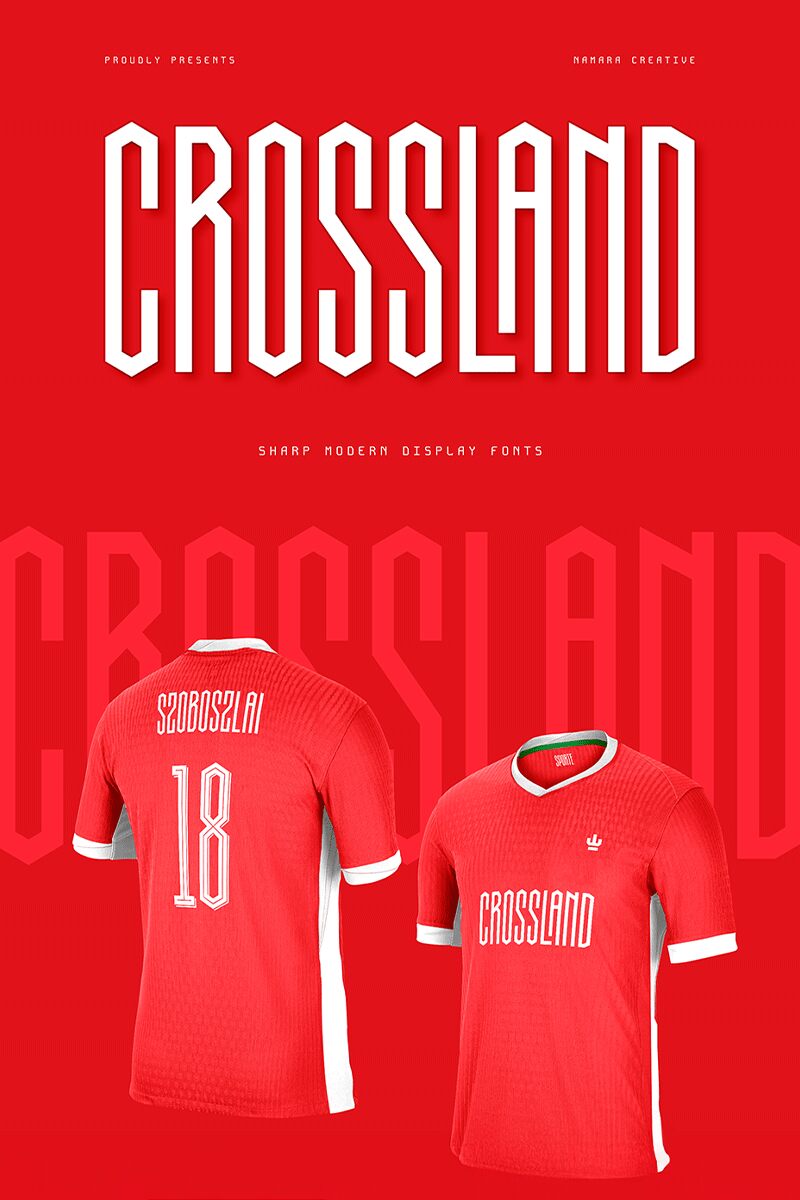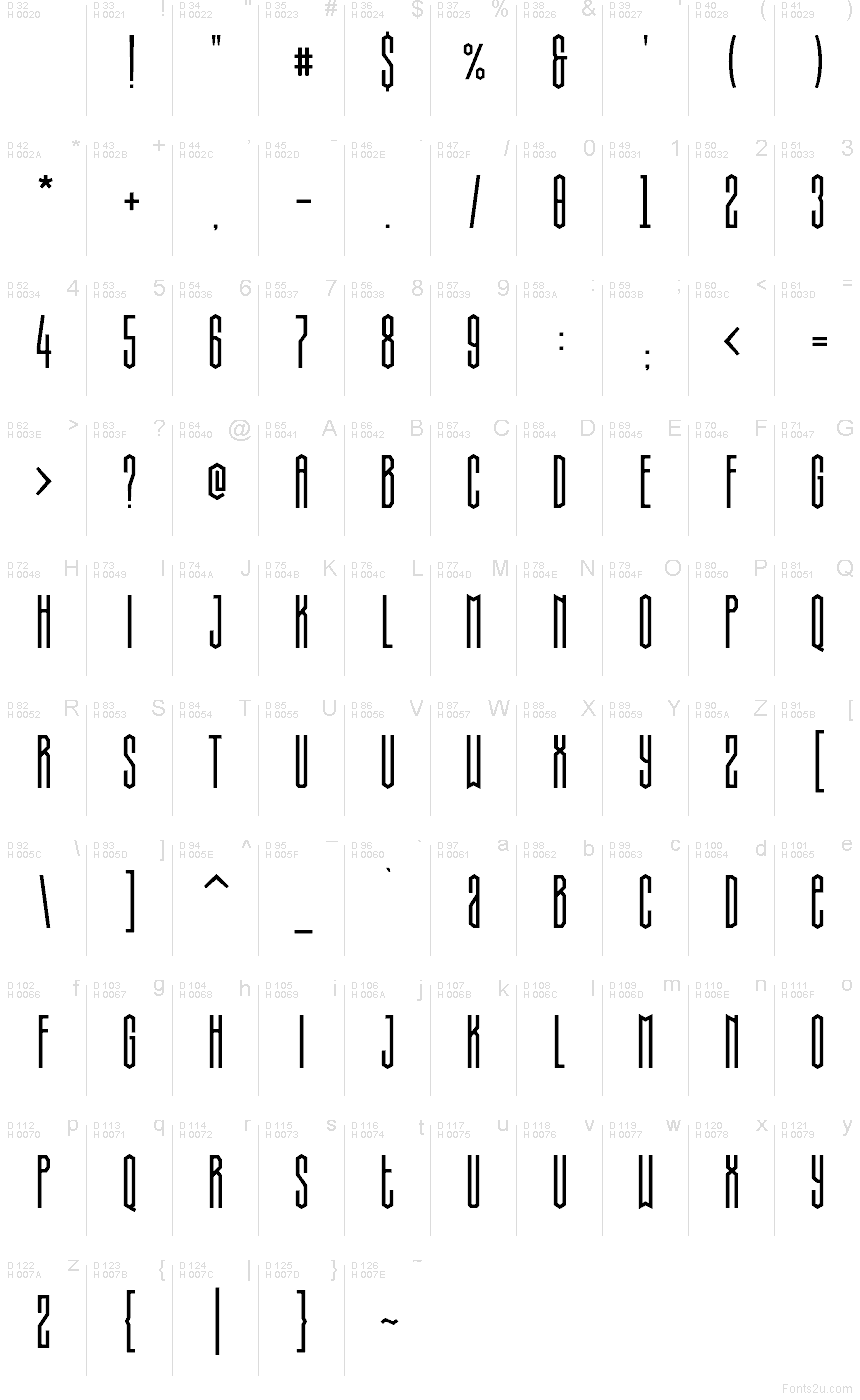
Crossland font by Namara Creative is a free techno display typeface with a striking, maze-like construction that locks each letter into a bold, geometric frame. Sharp angles, tall proportions, and consistent line weight give it a wired, electric feel, as if every word is traced in neon tubing. The result is a rigid yet energetic texture that instantly pulls the eye across a headline or logo.
Using Crossland font, you can push intensity in sports branding, esports teams, energy drink packaging, racing graphics, bold event posters, or YouTube thumbnails that need serious impact. The tight rhythm and modular forms create a strong visual block, so it shines at large sizes where those angular details have room to breathe. For supporting text, pair this free font with a clean, neutral sans in a lighter weight to keep layouts balanced and readable.